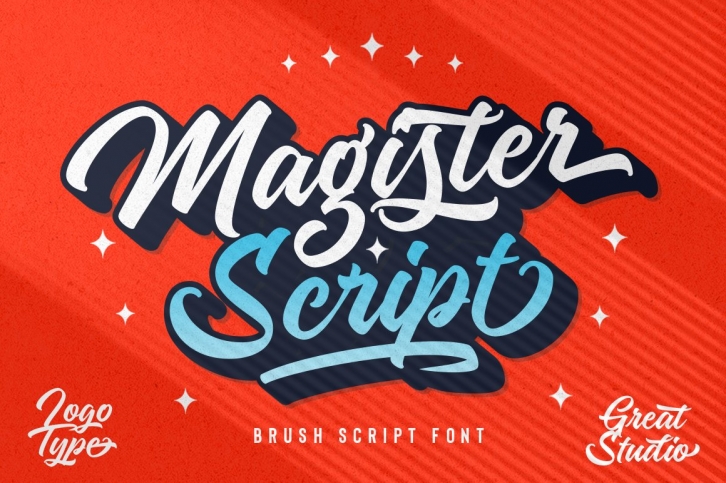
Magister Script is a trendy and unique font with an authentic style. It was designed by Great Studio and it's a great choice for creative people who need such a font. It was released on August 13, 2020 and the file size is 13.51 MB. Magister Script will add an organic vibe to any design idea!